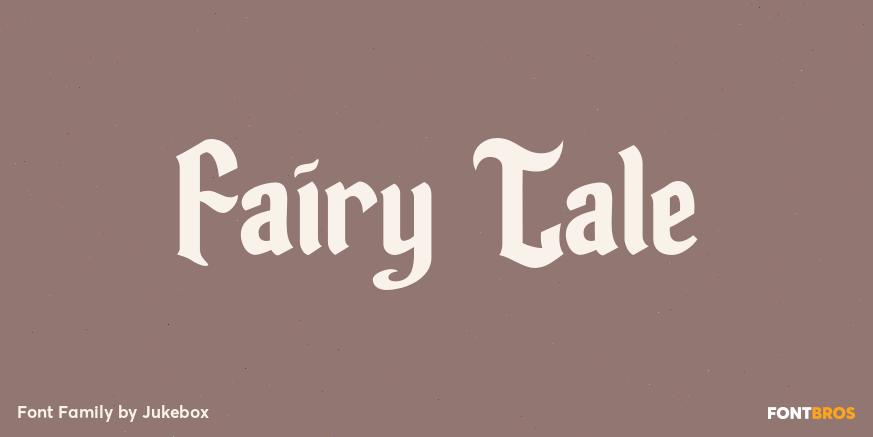
About Fairy Tale
Fairy Tale is a very early Jukebox font that was inspired by the handlettered poster from a popular 1950s animated film. It captures the old world charm and feel that is so ubiquitous to those childhood stories we all love. The design manages to incorporate…